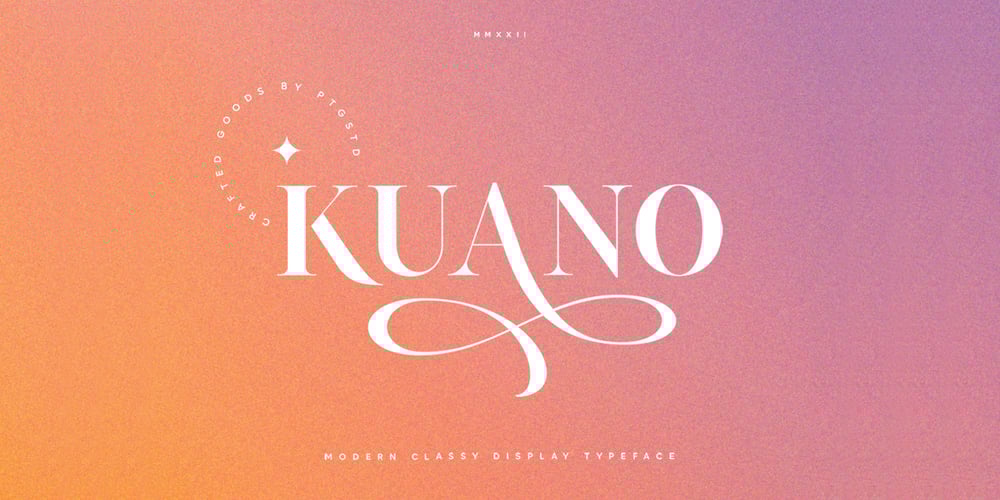
Kuano Font Family was designed by Burhan Adiatma and published by pentagonistudio. Kuano contains 1 styles and family package options. Kuano Is Classy Display Serif Character Inspired By Modern and Ligature Characters.SOFTWARE REQUIREMENTS :Fonts and alternate : No special software required they may be used in any basic program /website apps that allows standard fonts That’s it folks! You can go ahead and get cracking :)Follow My Shop For Upcoming Updates Including Additional Glyphs And Language Support. And Please Message Me If You Want Your Language Included or If There Are Any Features or Glyph Requests, Feel Free to Send me A Message. Have a Good Day !